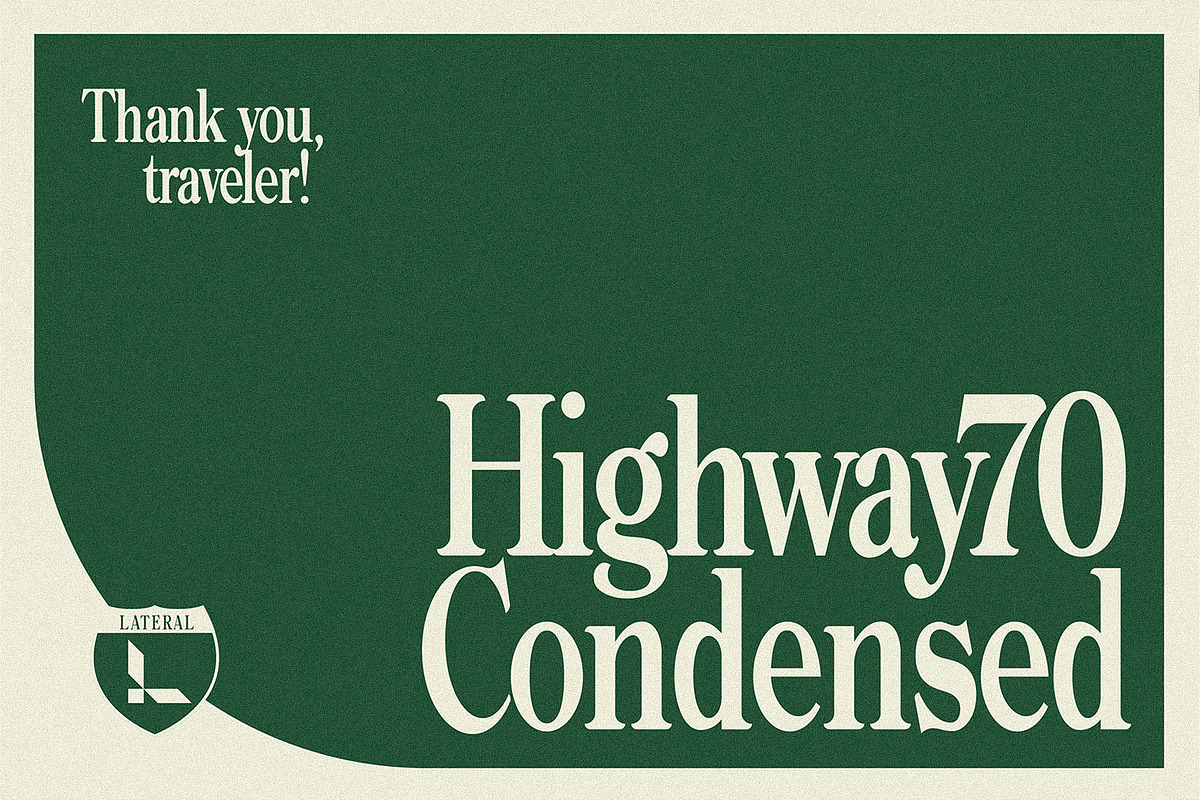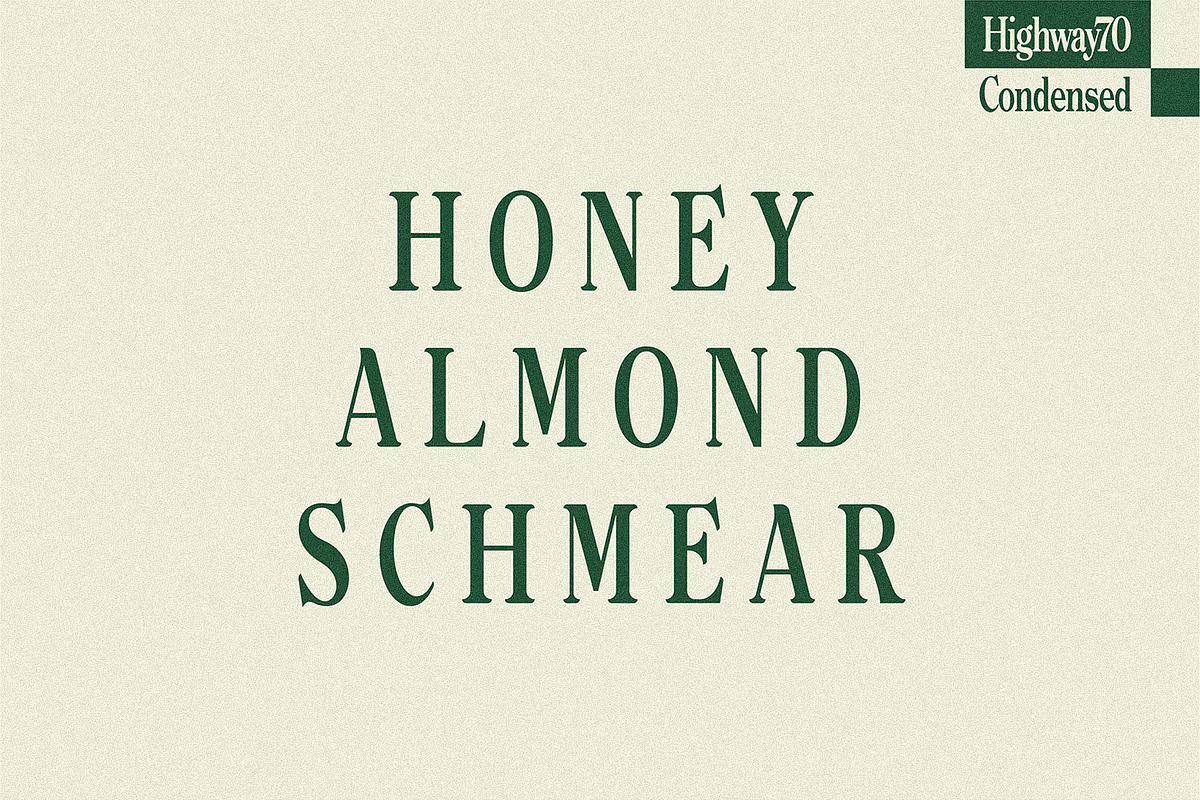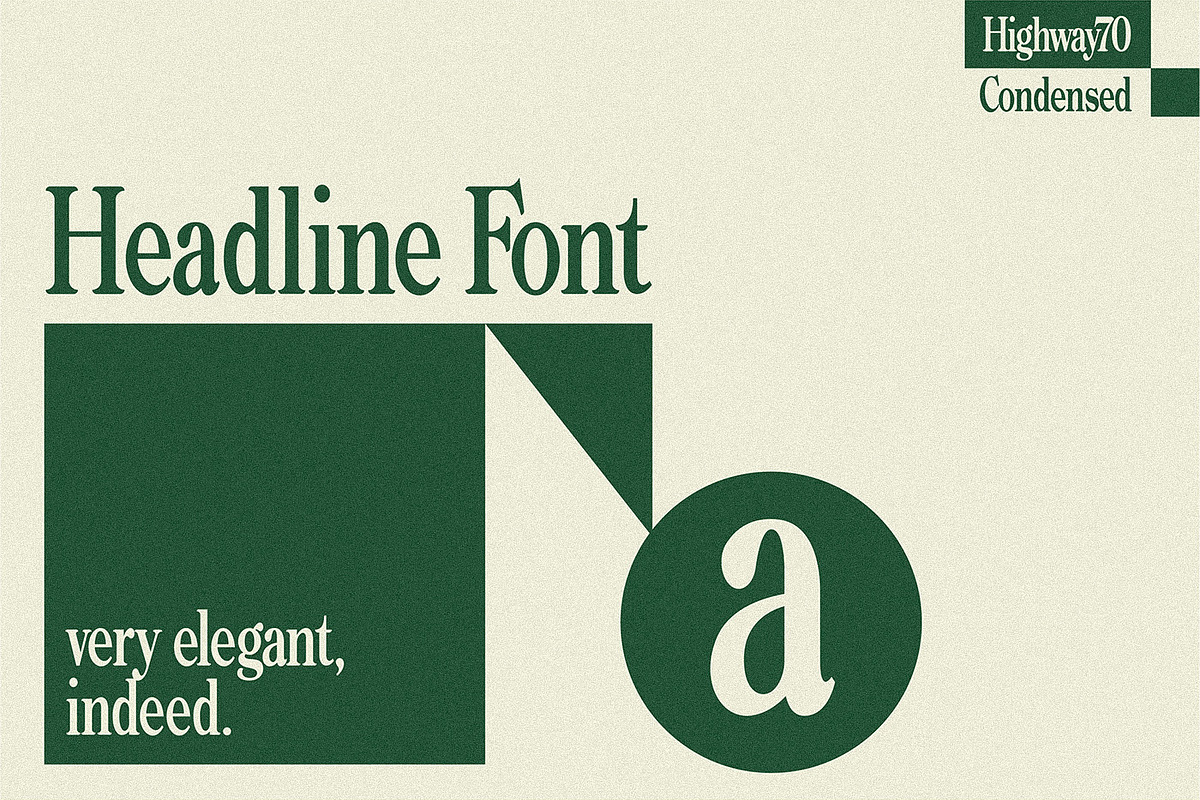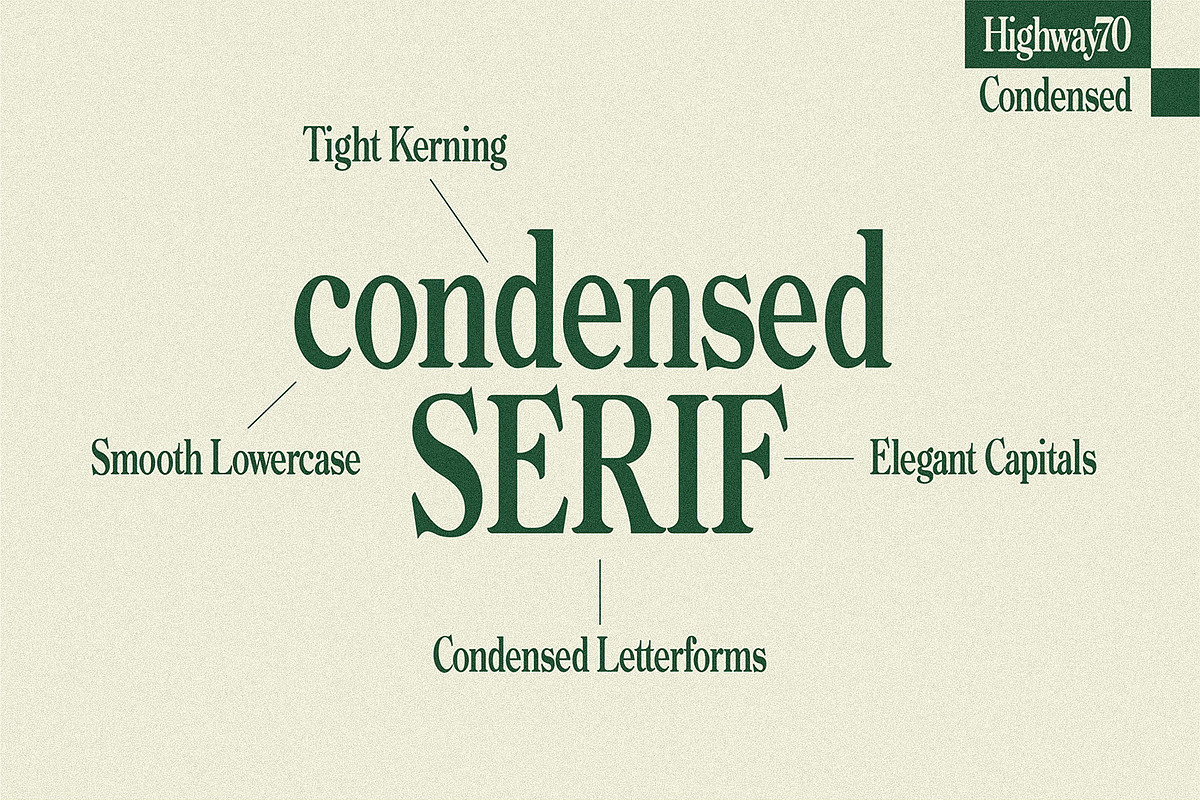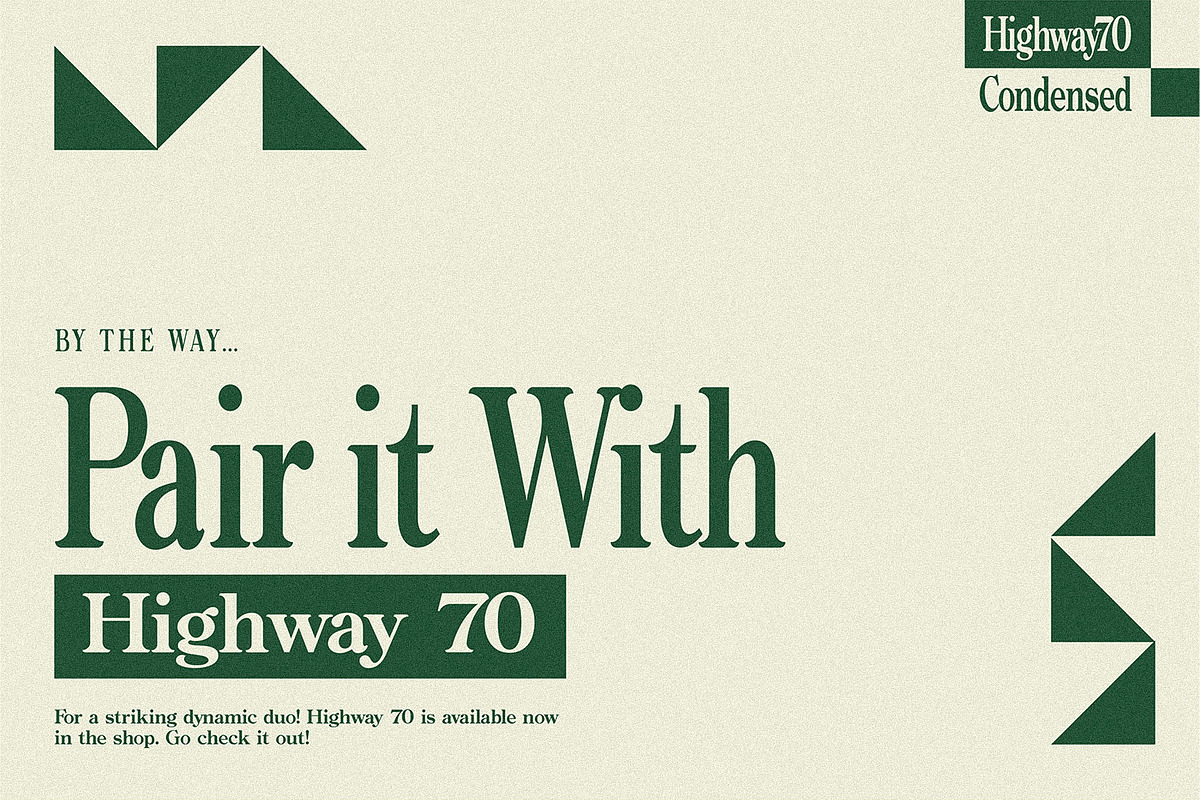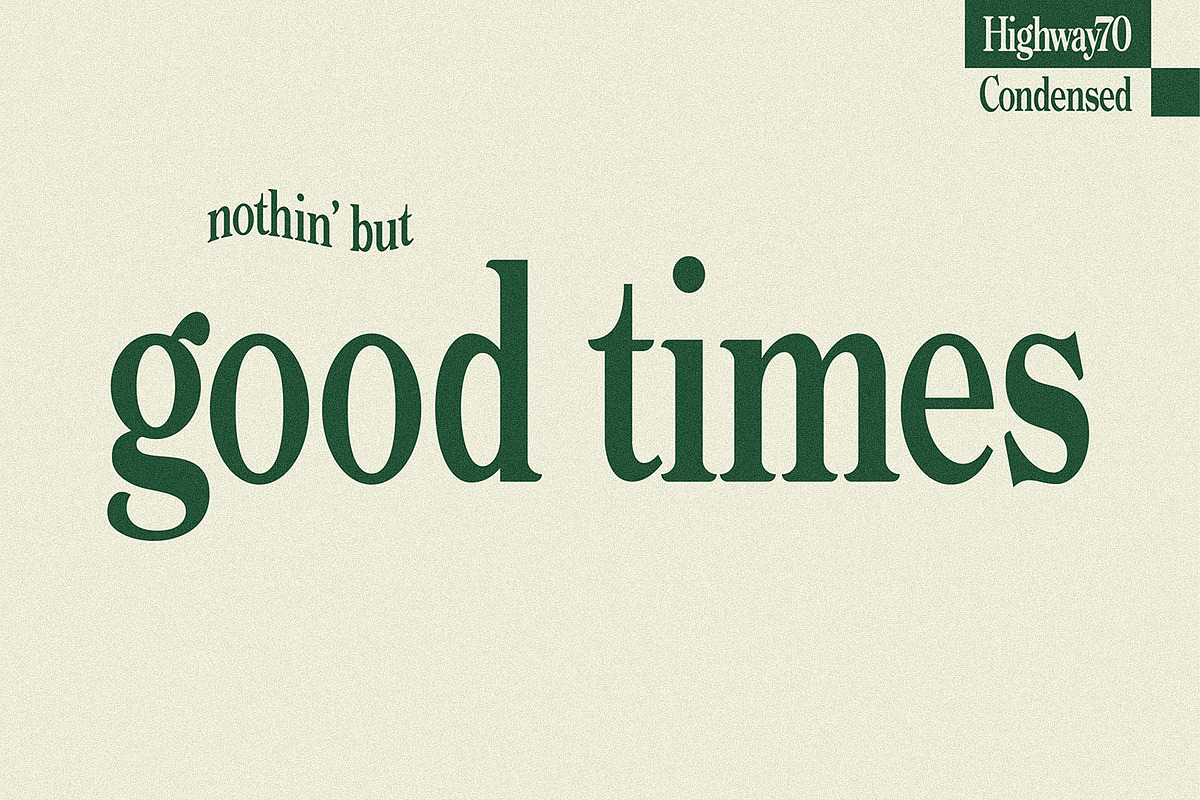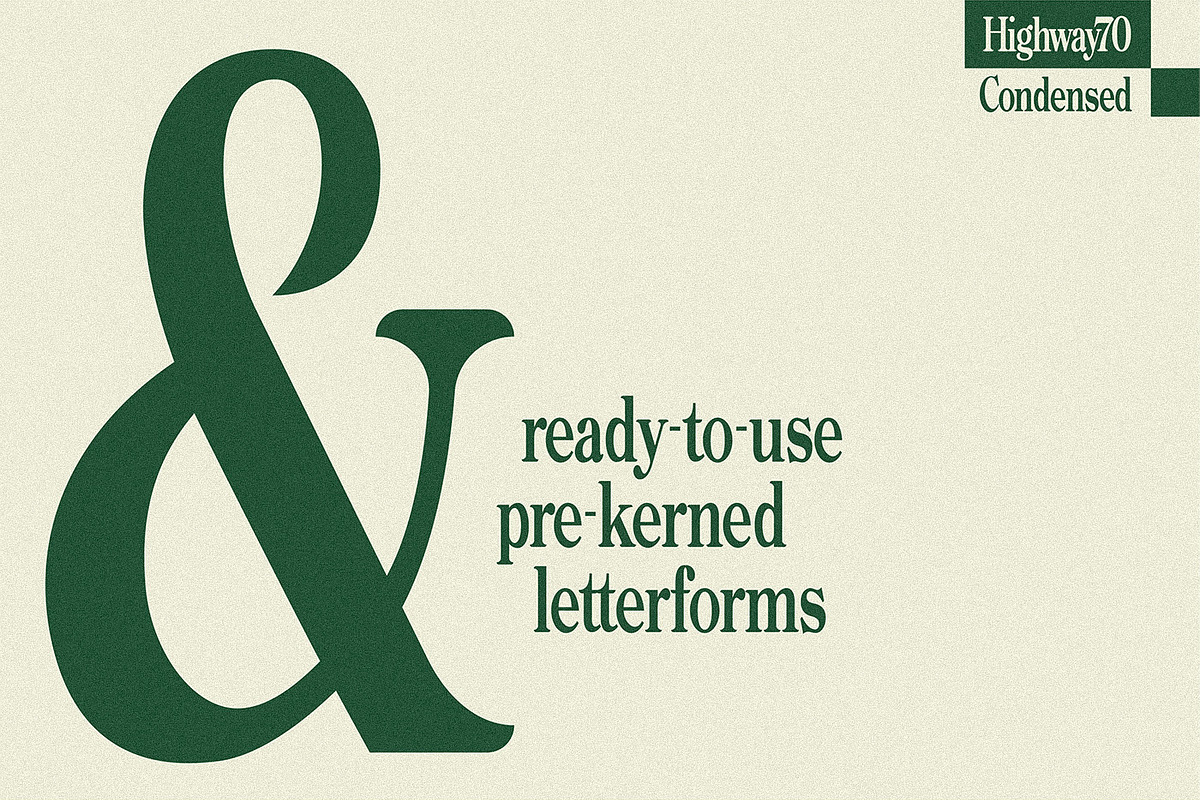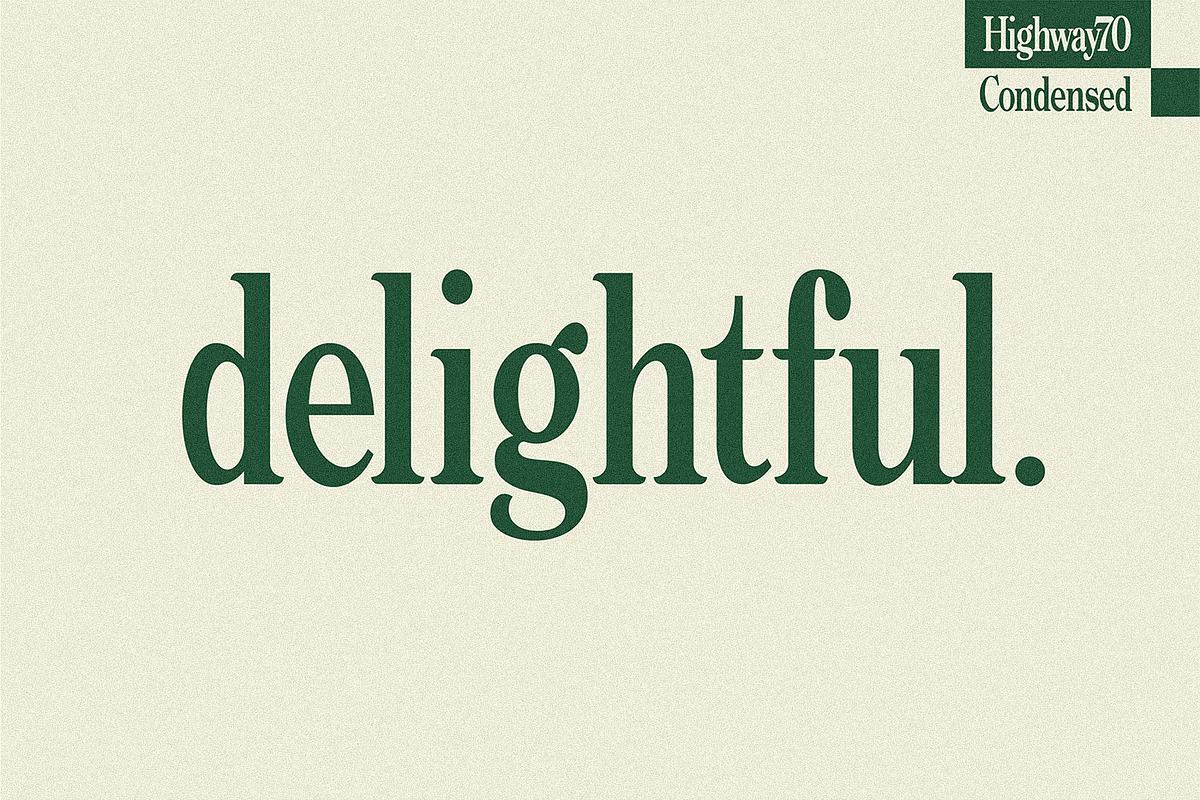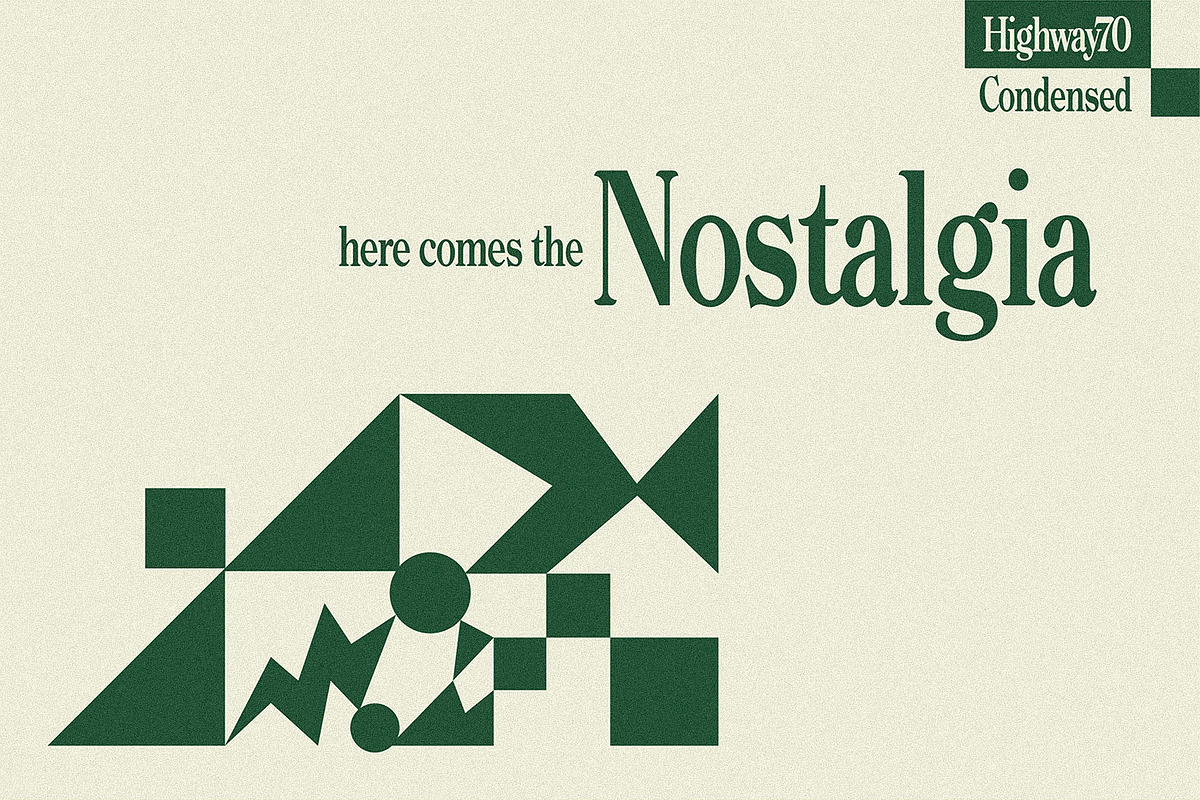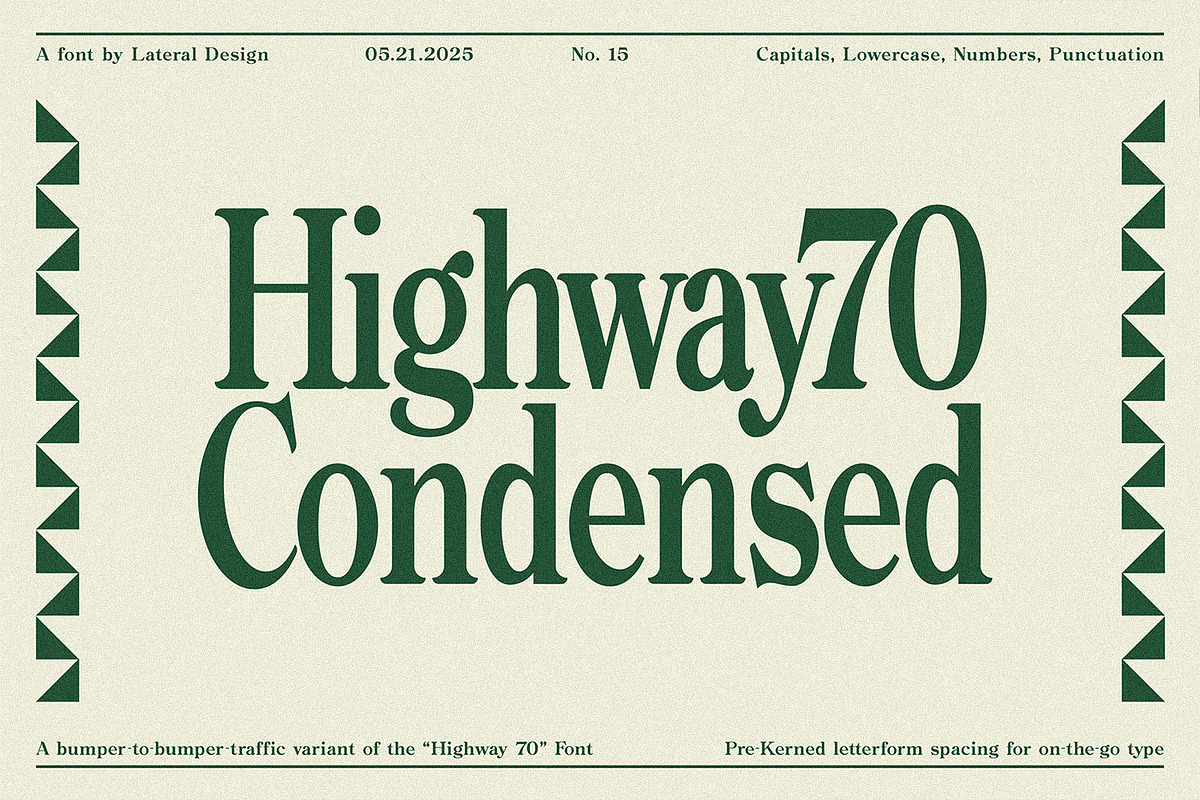
Highway 70 Condensed - Retro Serif
Highway 70 Condensed is a tall, elegant display serif that delivers strong headlines with ease. With it’s bold construction and nostalgic appeal, it works very well when typeset in all caps, lowercase, or mixed case. Highway 70 Condensed is a variant of our Highway 70 serif font, and is inspired by mountainside travels along Colorado’s Interstate 70. This font includes uppercase, lowercase, numbers, and punctuation – all pre-kerned for ideal letter spacing.
Highway 70 Condensed Includes:
- Capital and lowercase letters
- Pre-kerned letter spacing for ideal optical spacing